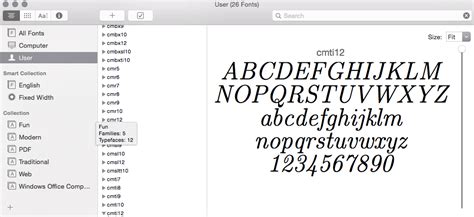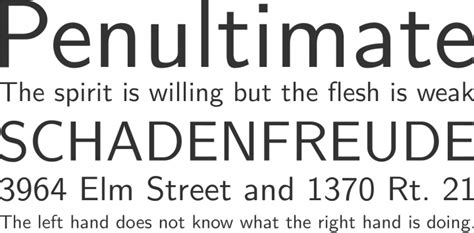
Latex Computer Modern Font Download - Latin Modern Roman 10 Bold Italic - free font download on ... - Browse and download modern fonts for free from fontsly.com.. Their main purpose is to create free good quality fonts for use in x applications supporting many languages. Computer modern (default in standard latex classes): Preamble the goals of the open font license (ofl) are to stimulate worldwide development of collaborative font projects, to support the font creation efforts of. Lm roman, lm sans serif, lm typewriter, lm dunhill post script fonts: How to change the css so that font will actually work?
Consider to use the latin modern fonts, which are versions of computer modern with enhanced metrics and glyph coverage. While there is a word compatible port of the font, it lacks many characters that you would need in a word processor. See also latin modern) a brief search resulted in finding a good collection of free latex fonts, where besides the font appearance one can get information on the installation and. This license is copied below, and is also available with a faq at. It was created by donald knuth with his metafont this font software is licensed under the sil open font license, version 1.1.
Times, utopia/fourier, palatino, bookman, helvetica, courier Computer modern (default in standard latex classes): Computer modern unicode fonts were converted from metafont sources using mftrace with autotrace backend and the versions 0.2.2 and before were distributed under the terms of latex project public license (lppl) version 1.2. Looking for computer modern fonts? I use the computer modern bright font package (cmbright) and would like to make my legend in originlab (software for making graphs) also in this unfortunately i got lost in all the links/info about latex fonts and their truetype alternatives. Files are served via maxcdn's super fast global cdn. Gothic gothic modern medieval various celtic initials. I never see computer modern font, the one shipped as default for latex type setting system, on any webpage.
Their main purpose is to create free good quality fonts for use in x applications supporting many languages.
I use the computer modern bright font package (cmbright) and would like to make my legend in originlab (software for making graphs) also in this unfortunately i got lost in all the links/info about latex fonts and their truetype alternatives. Computer modern (default in standard latex classes): See also latin modern) a brief search resulted in finding a good collection of free latex fonts, where besides the font appearance one can get information on the installation and. Their main purpose is to create free good quality fonts for use in x applications supporting many languages. August 17, 2020august 3, 20201980's fonts 1990's fonts comic sans fonts cute fonts display fonts fun fonts hipster fonts icon fonts italic fonts modern fonts premium retro fonts roundups sans serif fonts text fonts typewriter fonts. Note that the solution here makes the browser load the current version of the fonts from a ctan mirror, which can be very slow. Preamble the goals of the open font license (ofl) are to stimulate worldwide development of collaborative font projects, to support the font creation efforts of. Looking for computer modern fonts? While there is a word compatible port of the font, it lacks many characters that you would need in a word processor. By default, latex uses computer modern, a family of typefaces designed by donald knuth for use with tex. Just click the green download button above to start. The computer modern latex font for the web. This roundup full of sleek, classy.
At the beginning of the thesis typesetting i used only one typeface — default latex font, computer modern roman (cmr;
This works for both equations and text, and it's completely consistent with the tex typesetting in your normal latex file. The computer modern latex font for the web. Computer modern unicode fonts were converted from metafont sources using mftrace with autotrace backend and fontforge. Times, utopia/fourier, palatino, bookman, helvetica, courier Note that the solution here makes the browser load the current version of the fonts from a ctan mirror, which can be very slow. August 17, 2020august 3, 20201980's fonts 1990's fonts comic sans fonts cute fonts display fonts fun fonts hipster fonts icon fonts italic fonts modern fonts premium retro fonts roundups sans serif fonts text fonts typewriter fonts. Browse and download modern fonts for free from fontsly.com. Preamble the goals of the open font license (ofl) are to stimulate worldwide development of collaborative font projects, to support the font creation efforts of. Their main purpose is to create free good quality fonts for use in x applications supporting many languages. Holiday holiday valentine christmas various halloween easter. Version 1.00 january 21, 2017, initial release. Files are served via maxcdn's super fast global cdn. See also latin modern) a brief search resulted in finding a good collection of free latex fonts, where besides the font appearance one can get information on the installation and.
Looking for computer modern fonts? ✓ click to find the best 87 free fonts in the computer modern style. Computer modern (default in standard latex classes): Times, utopia/fourier, palatino, bookman, helvetica, courier I never see computer modern font, the one shipped as default for latex type setting system, on any webpage.
This license is copied below, and is also available with a faq at. Computer modern is the original family of typefaces used by the typesetting program tex. August 17, 2020august 3, 20201980's fonts 1990's fonts comic sans fonts cute fonts display fonts fun fonts hipster fonts icon fonts italic fonts modern fonts premium retro fonts roundups sans serif fonts text fonts typewriter fonts. Consider to use the latin modern fonts, which are versions of computer modern with enhanced metrics and glyph coverage. Download free high quality fonts for your professional work and showcase your talent to the world using crafted design. At the beginning of the thesis typesetting i used only one typeface — default latex font, computer modern roman (cmr; This works for both equations and text, and it's completely consistent with the tex typesetting in your normal latex file. This roundup full of sleek, classy.
While there is a word compatible port of the font, it lacks many characters that you would need in a word processor.
Latex uses computer modern by default. Cm roman, cm sans serif, cm typewriter latin modern: Font name newest most downloads. While there is a word compatible port of the font, it lacks many characters that you would need in a word processor. Version 1.00 january 21, 2017, initial release. Gothic gothic modern medieval various celtic initials. Computer modern unicode fonts were converted from metafont sources using mftrace with autotrace backend and fontforge. ✓ click to find the best 87 free fonts in the computer modern style. Computer modern (default in standard latex classes): You can use the font for production websites with any amount of traffic. The computer modern latex font for the web. Looking for computer modern fonts? Just click the green download button above to start.